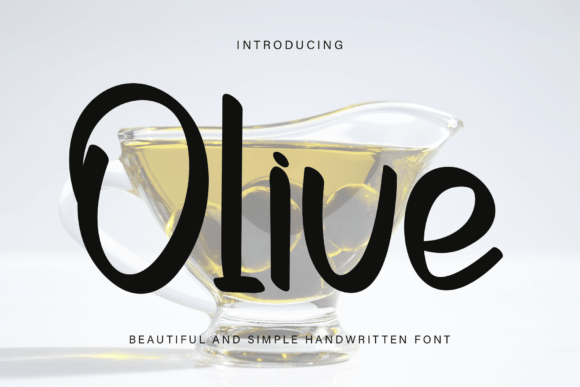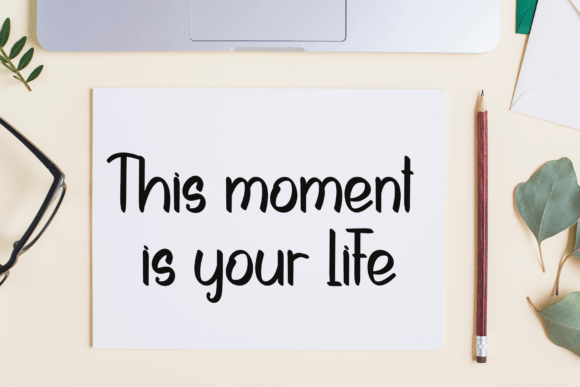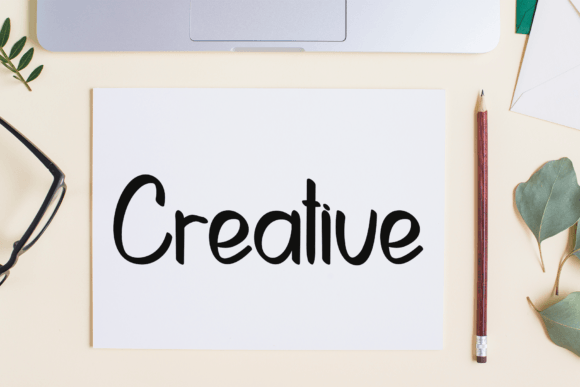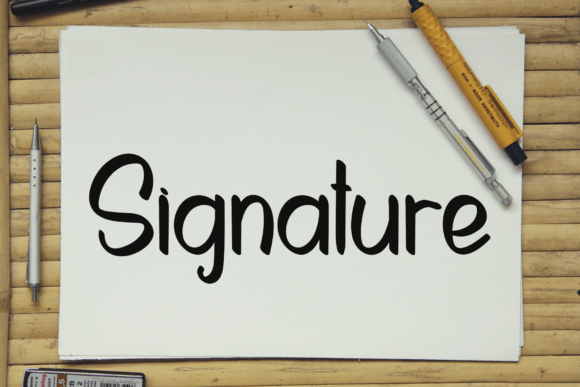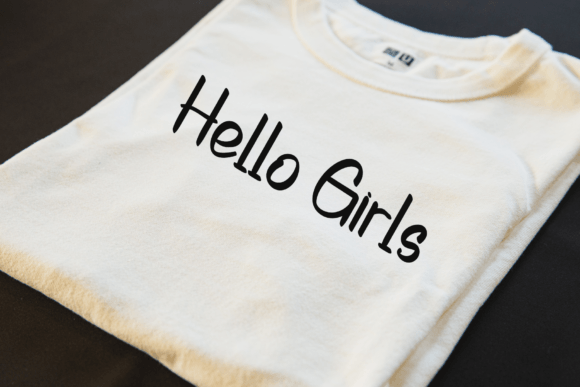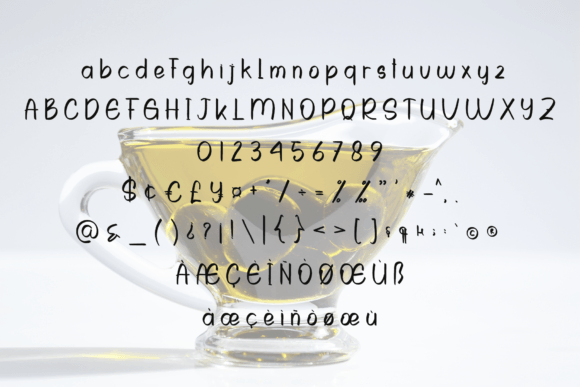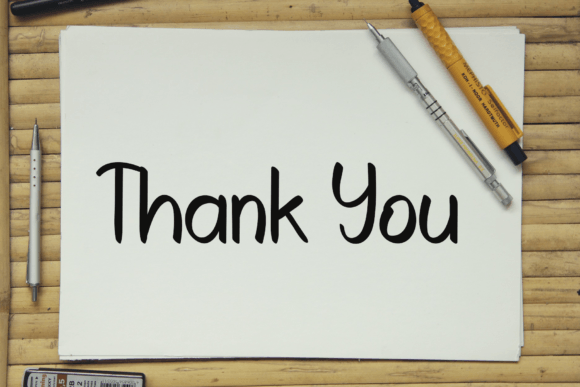
Olive Font
About Olive Font
Introducing “Olive” – Your Unique and Round Lettered Handwritten Font for Distinctive Designs!
“Olive” is more than just a font; it’s a unique and round lettered handwritten typeface that has been carefully crafted to produce exceptional results. With its distinct and captivating style, this font is perfect for writing titles, creating invitations, composing letters, and various other design applications.
With “Olive,” you gain access to a typeface that stands out with its rounded letterforms, making it an ideal choice for a wide range of creative projects. Its handwritten charm adds a touch of character and authenticity to your text, ensuring that your content makes a memorable impression.
Imagine using “Olive” to craft eye-catching titles that grab attention, design captivating invitations that leave a lasting impression, create heartfelt letters that resonate with the recipient, or add a unique flair to various types of products. This font’s uniqueness and round lettered style will make your designs truly distinctive.
Whether you’re an experienced designer or someone looking to add a touch of individuality to your work, “Olive” is your go-to font for embracing uniqueness and creativity.